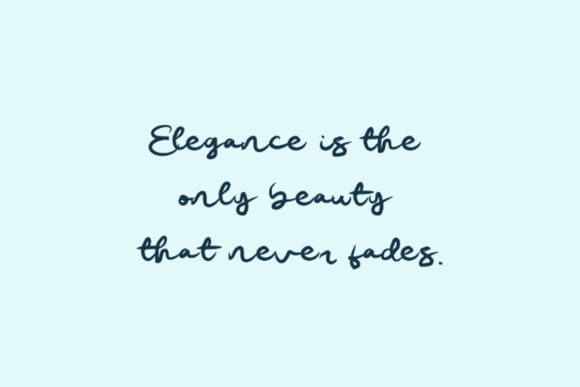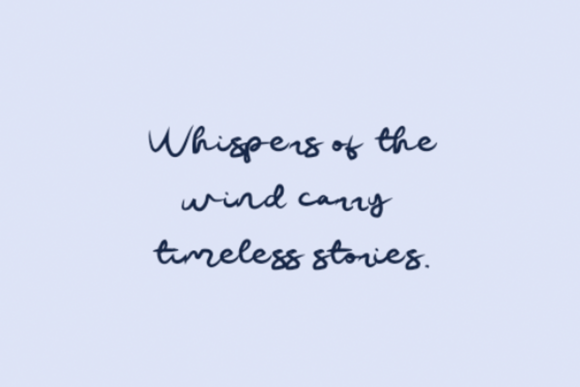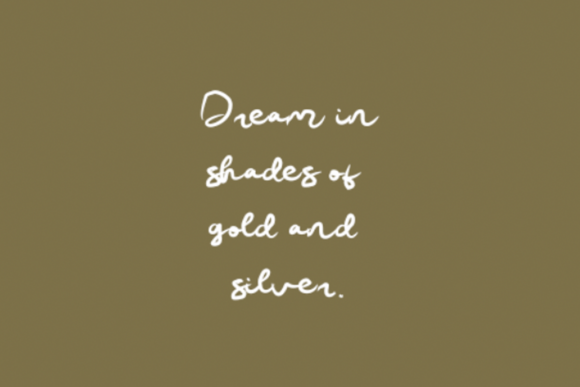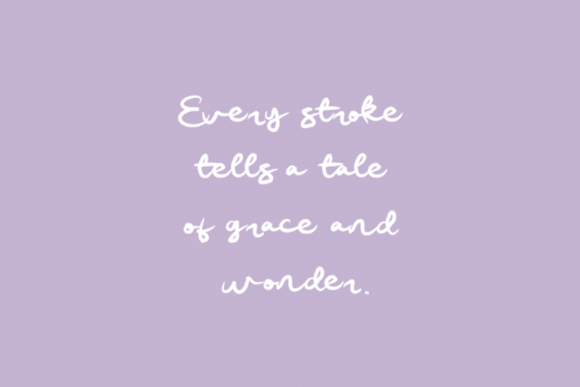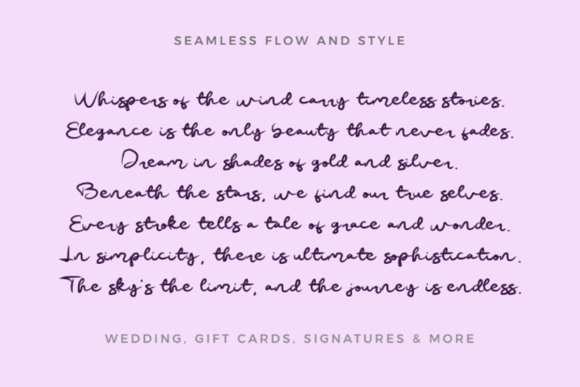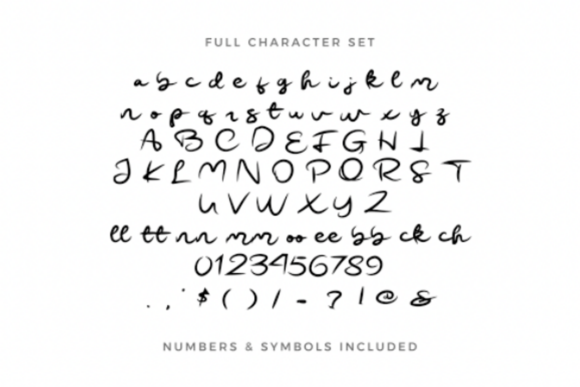
Introducing Excellency Script: Elevate Your Designs with Elegance
In the realm of typography, few fonts manage to convey the essence of sophistication and elegance as effortlessly as Excellency Script. This exquisite, hand-lettered script font is a masterpiece of modern calligraphy, designed to bring a touch of personalized artistry to your designs and crafts. With its flowing lines and delicate curves, Excellency Script is poised to revolutionize the way you approach your creative projects, adding an unparalleled level of grace and style to every piece.
The Quintessence of Sophistication
Excellency Script is more than just a font; it’s an experience. Each letter is meticulously crafted to ensure a seamless flow, creating a sense of continuity and harmony in your designs. This font is perfect for designers and crafters looking to imbue their work with a sense of luxury and refinement. Whether you’re working on wedding invitations, gift cards, or personal stationery, Excellency Script provides the perfect blend of elegance and whimsy.
The versatility of Excellency Script is one of its most compelling features. This font can be used in a myriad of creative projects, including:
• Wedding Invitations: Add a romantic allure to your wedding invites with Excellency Script, making each one a memorable keepsake for your guests.
• Gift Cards: Doling out stylish flair to gift cards has never been easier. Excellency Script turns ordinary gift cards into extraordinary tokens of appreciation.
• Signatures: Add a personal stroke to your signatures, making them stand out with elegance and poise.
• Bullet Journals: Beautify your bullet journals with Excellency Script, turning them into stunning art pieces that reflect your personality.
• Notes: Garnish your notes with a touch of sophistication, making them perfect for jotting down thoughts, ideas, or inspiration.
Why Choose Excellency Script?
Excellency Script stands out in the world of typography for several reasons:
• Unique Hand-Lettered Design: Each letter is carefully crafted by hand, ensuring a unique and personalized touch to your designs.
• High Versatility: Excellency Script can be used across various platforms and projects, from digital designs to print materials.
• Ease of Use: Despite its intricate design, Excellency Script is easy to use, even for those who are new to working with script fonts.
• Timeless Elegance: The font’s classic design ensures that your projects will remain stylish and relevant for years to come.
Tips for Using Excellency Script
To get the most out of Excellency Script, consider the following tips:
• Pair with Complementary Fonts: For maximum impact, pair Excellency Script with clean, sans-serif fonts to create a striking contrast.
• Experiment with Colors: Don’t be afraid to experiment with different colors. Excellency Script looks stunning in metallic ink, pastels, and rich jewel tones.
• Play with Sizes: Varying the size of your text can add depth and interest to your designs. Use larger text for headings and smaller text for body content.
Excellency Script is a game-changer for designers and crafters looking to elevate their projects with a touch of elegance and sophistication. Its unique, hand-lettered design and versatile nature make it the perfect addition to your typographic arsenal. Dive into the captivating charm of Excellency Script and let your creativity soar to new heights. Whether you’re crafting beautiful wedding invitations, stylish gift cards, or personal notes, Excellency Script is sure to leave a lasting impression.